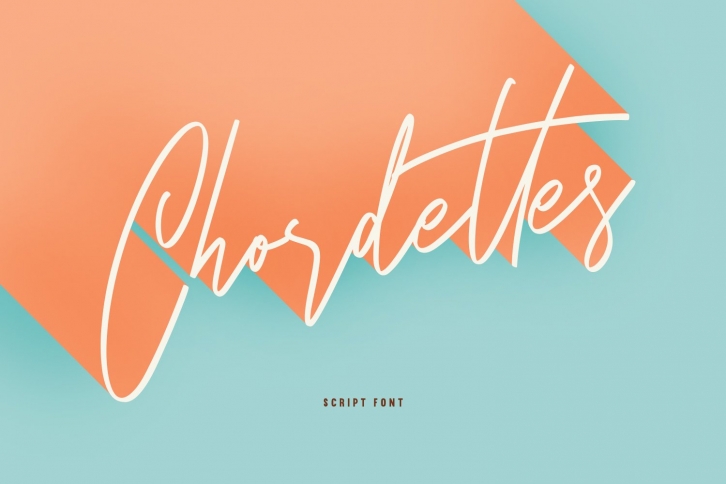
Chordettes Signature Script Brush Handmade Font Download
Chordettes Signature Script Brush Handmade is a great font that was designed by Maulana Creative. Imagine the amount of combinations you can create using this font! The archive is 10.45 MB and it was released on July 12, 2020. Chordettes Signature Script Brush Handmade looks beautiful on wedding invitations, greeting cards, logos, posters, labels, t-shirt designs, logos, business cards and is perfect for use in ink or watercolor works, fashion, magazines, packaging and food menus, children's books and more!